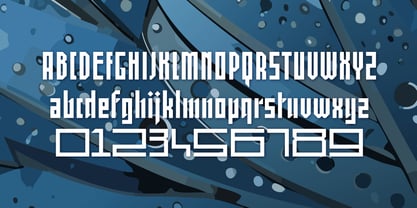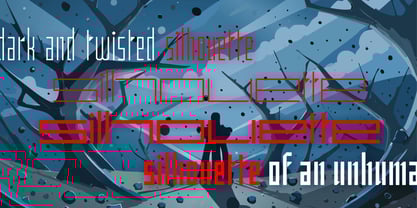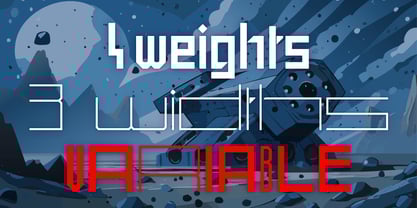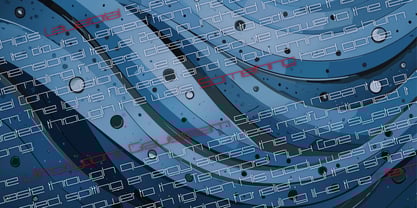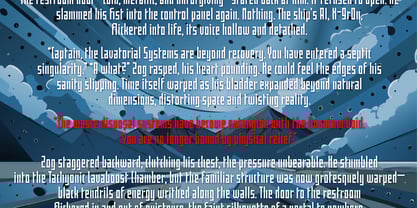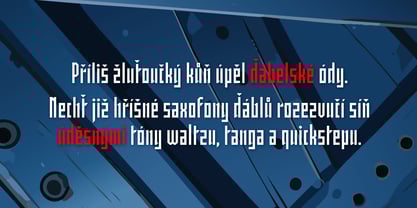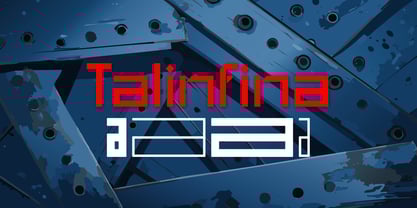
Talinfina
by Dominik Krotscheck
The Talinfina Font Family was designed by Dominik Krotscheck and published by Dominik Krotscheck. Talinfina contains 13 styles and family package options. More about this family
A geometric and modern font combining sharp angles and round corners for a technical appearance.
This font-family features a geometric and modern design with a strong emphasis on straight lines and sharp angles. The characters are uniformly structured, giving it a futuristic and technical appearance. Available in four weights in three widths as well as variable.
Ideal for technology branding, modern posters, headlines, logos and imitating digital interfaces.